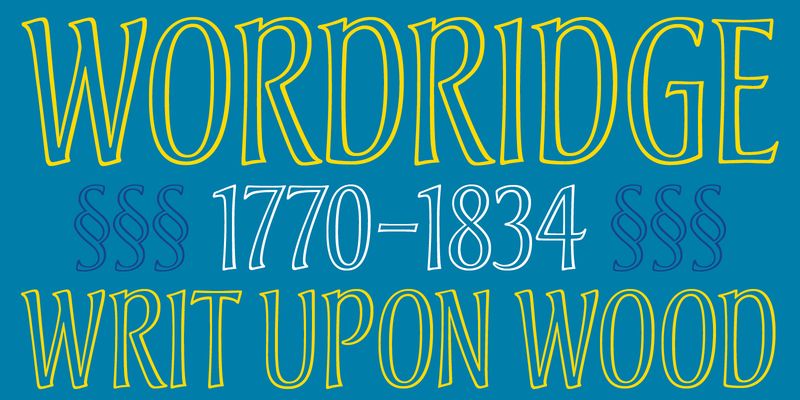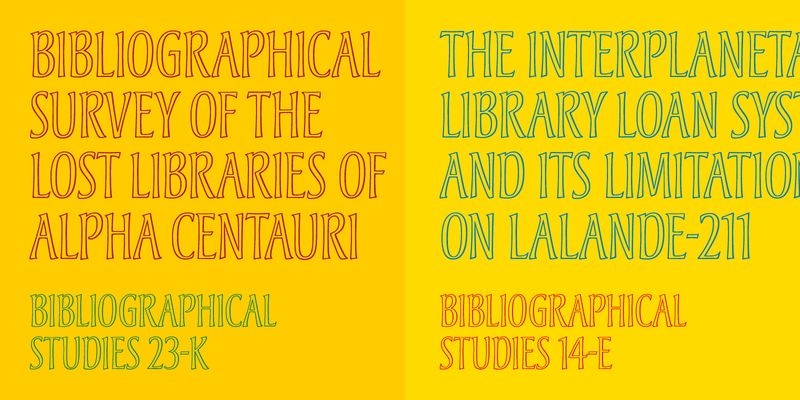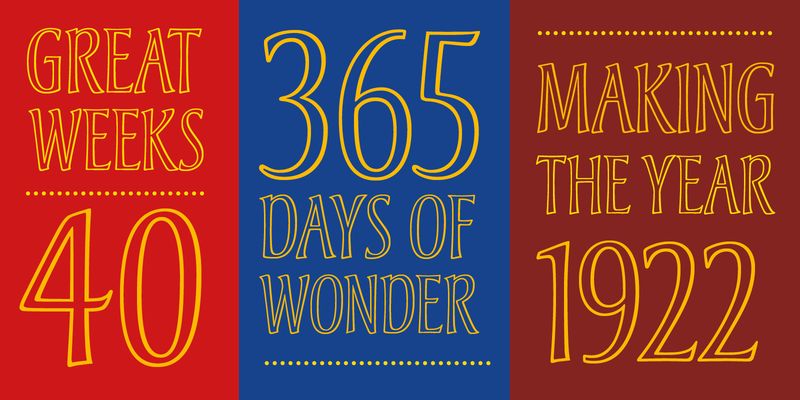
Michael Harvey first drew the lettering that became the foundation for Andreas in 1988 as part of the book jacket design for The Studios of Paris, a Yale University Press publication. In keeping with the book’s subject, Harvey wanted letterforms that reflected the Art Nouveau period. In addition, the type had to be narrow enough to fit the title across the top so as not to intrude on the Van Gogh painting that filled the rest of the jacket. To accomplish this end, he drew the letterforms freehand, giving them shapely stems and the high-waisted look characteristic of Art Nouveau lettering. He also added distinctive junctions to the D, P, and R. The jacket’s design further required that the title reverse out in white. Harvey felt that a solid letter would have been too heavy, so he drew it in outline, which contributes to its graceful, ethereal impression. All of which makes Andreas a good choice for wine labels, upscale food packaging, resort brochures and identities, book design, and magazine titling.